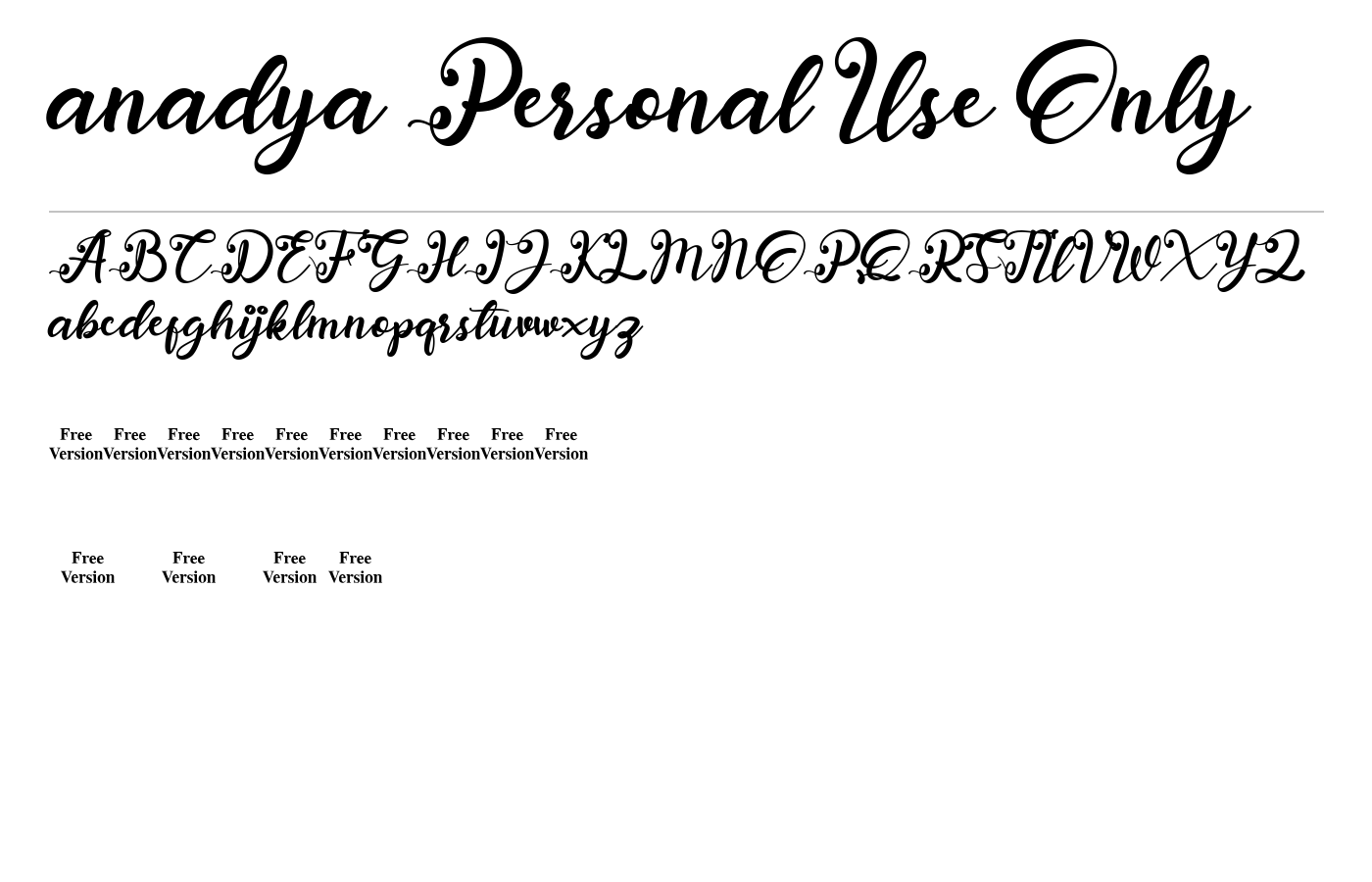
Anadya Personal Use Only is a charming script font with elegant, flowing letterforms that combine smooth curves and playful loops, giving it a warm and inviting personality. Its moderate weight and balanced contrast make it ideal for creative projects like invitations, branding, and casual headlines where a personal, handcrafted feel is desired. This font works especially well in designs seeking to convey friendliness and artistic flair with a sophisticated yet approachable touch.
| Font family | anadya Personal Use Only Font |
| Designer | Fuad Hasan |